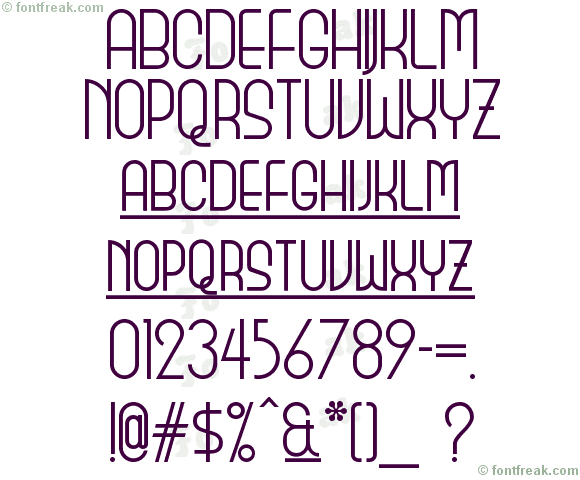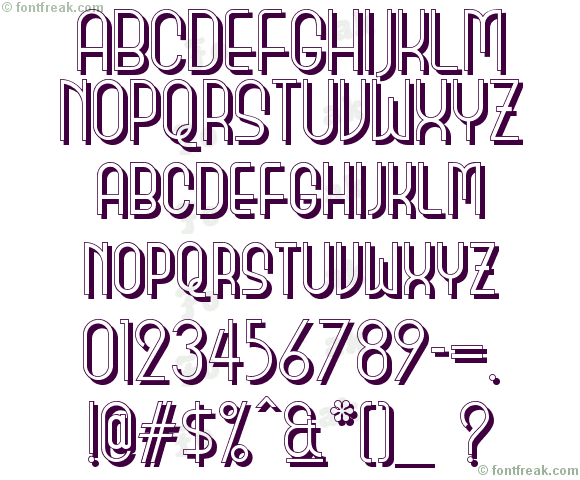
Monicas Salon NF
Monicas Salon Shadow NF
About Monicas Salon NF
Monicas Salon NF, designed by Nick Curtis, is a striking display font that embodies a unique blend of modern elegance and playful charm. This font falls into the decorative category, characterized by its distinctive letterforms and artistic flair. The strokes exhibit a moderate weight with soft curves, contributing to a visually appealing contrast that captures attention without overwhelming the viewer. The spacing is well-balanced, ensuring readability while maintaining an artistic touch, making it suitable for various creative projects.
The versatility of Monicas Salon NF makes it an excellent choice for a variety of applications. It shines in wedding invitations, where its stylish appearance can add a personal touch to special moments. Additionally, it is perfect for movie posters, where the captivating design can draw in potential audiences. Restaurant menus also benefit from its unique aesthetic, giving a touch of sophistication that elevates the dining experience. Content creators will find it ideal for social media graphics, ensuring their posts stand out in a crowded feed.
What sets Monicas Salon NF apart is its ability to blend artistic style with practicality, making it a go-to typeface for anyone seeking to enhance their visual communication. Whether for digital or print, the Monicas Salon NF font free download opens up a world of design possibilities, inviting users to explore its unique characteristics in their creative endeavors.